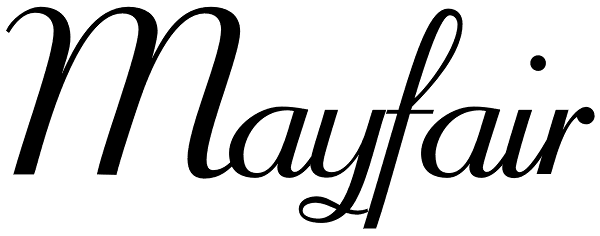
Mayfair
The long awaited and much requested revival of Robert Hunter Middleton's very popular classic is finally here. Mayfair Cursive was an instant hit for Middleton in 1932, and it went on being used widely until late into the 1970s, in spite of it never...
Mayfair Alt
Mayfair